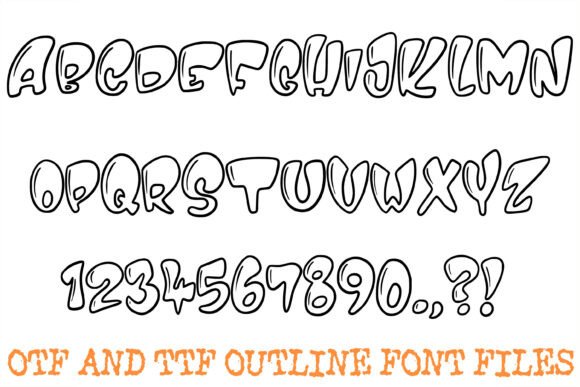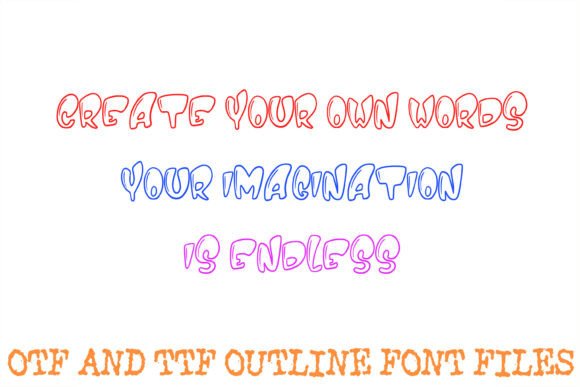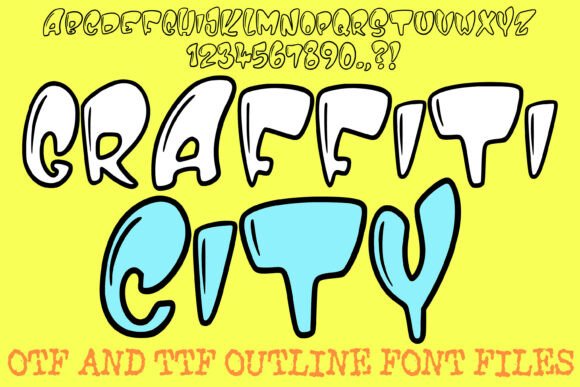
Introducing the Graffiti City Font: A Bold and Playful Typeface for Urban-Inspired Designs
Are you a designer or crafter looking for a font that captures the vibrant energy of modern street art? Look no further than the Graffiti City Font, a high-energy display typeface that embodies the bold, “bubble-letter” aesthetic of urban murals. This font is perfect for designers working on urban-style branding, music festival posters, high-impact apparel prints, and vibrant social media content.
The Inspiration Behind Graffiti City Font
The Graffiti City Font is inspired by the dynamic and rhythmic energy of metropolitan street art. Every letter and number in this font feels inflated and full of life, with voluminous, rounded characters and thick black outlines that give it a bold and playful look. The design also features strategic interior highlight marks that add depth and dimension to the font, making it perfect for eye-catching designs.
Key Features of Graffiti City Font
• Bold and Playful Aesthetic: The Graffiti City Font features a bold, “bubble-letter” aesthetic that is perfect for urban-inspired designs.
• Voluminous Characters: The font features voluminous, rounded characters with thick black outlines that give it a bold and playful look.
• Strategic Interior Highlight Marks: The font features strategic interior highlight marks that add depth and dimension to the design.
• High-Energy Display Typeface: The Graffiti City Font is a high-energy display typeface that is perfect for designs that need to make a statement.
• Remarkably Legible: Despite its bold and playful aesthetic, the Graffiti City Font is remarkably legible, making it perfect for designs that need to communicate a message quickly and effectively.
Use Cases for Graffiti City Font
The Graffiti City Font is perfect for a variety of design projects, including:
• Urban-Style Branding: The font is perfect for designers working on urban-style branding projects, such as logos, business cards, and letterheads.
• Music Festival Posters: The font is perfect for music festival posters, flyers, and social media graphics.
• High-Impact Apparel Prints: The font is perfect for high-impact apparel prints, such as t-shirts, hoodies, and hats.
• Vibrant Social Media Content: The font is perfect for creating vibrant social media content, such as Instagram posts, Facebook graphics, and Twitter headers.
Why Choose Graffiti City Font?
There are many reasons why designers and crafters should choose the Graffiti City Font for their next project. Here are just a few:
• Unique and Eye-Catching: The font is unique and eye-catching, making it perfect for designs that need to stand out.
• Handcrafted and Urban: The font has a handcrafted, urban aesthetic that is both playful and remarkably legible.
• Perfect for Creative Studios: The font is perfect for creative studios and youth-focused brands that need a bold and playful typeface.
In conclusion, the Graffiti City Font is a bold and playful typeface that is perfect for designers and crafters looking to add a touch of urban energy to their designs. With its voluminous characters, thick black outlines, and strategic interior highlight marks, this font is sure to make a statement. Whether you’re working on urban-style branding, music festival posters, high-impact apparel prints, or vibrant social media content, the Graffiti City Font is a premier choice for designers who want to create eye-catching and engaging designs.